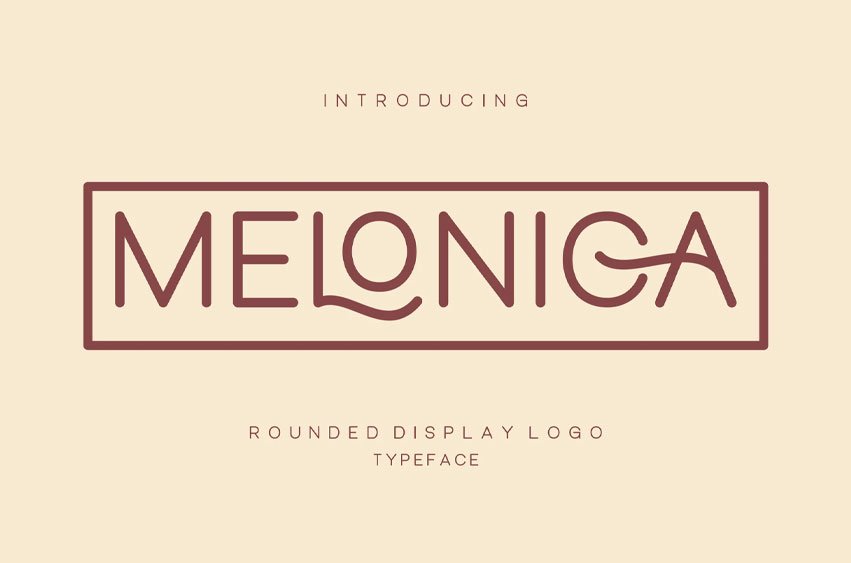
Melonica Font
Melonica Font Rounded Display Logo Typeface is a regular and authentic display font.
The font is suitable for any branding project like logo, esport, and many more. outstanding in a wide range of contexts.
• Uppercase
• Lowercase
• Uppercase Alternate
• Uppercase Ligature